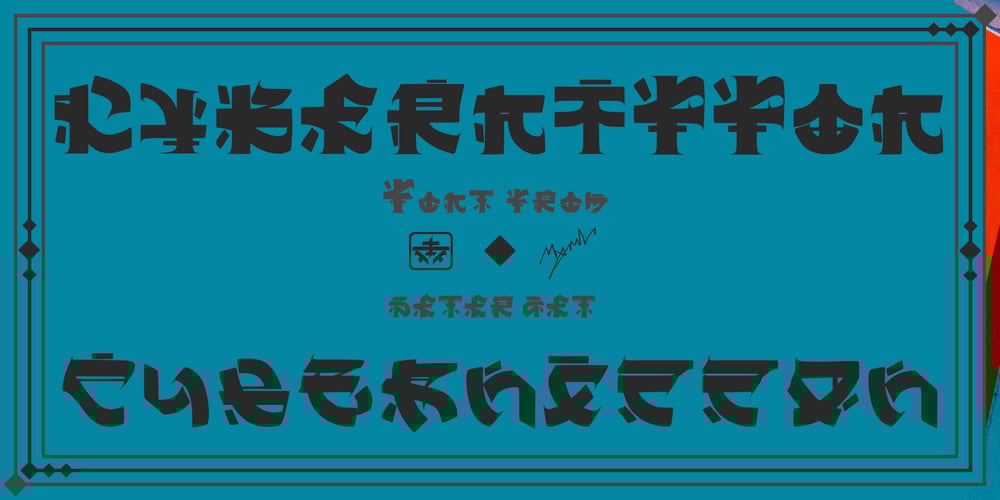
CyberNippon
CyberNippon font
CyberNippon Font Family was designed by Setter Zet and published by MXMV Design. CyberNippon contains 2 styles and family package options. CyberNippon is a unique latin script font that references Japanese and Cyberpunk motifs. Literal translation of the name “Cyber ​​Japan”This typeface took many months to complete and was inspired by the style and mood of cyberpunk, for whom Japanese culture is very close. Since the Japanese are inherent in perfectionism, while working on this font, I brought everything to perfection.The result of all the work was, in my opinion, a font that was perfectly verified and worked out for many hours.The main motives that are visible in this work are the modern interpretation of the classic Japanese hieroglyphic systems – hiragana and katakana.Originally, the font was completely handwritten using a calligraphic pen, and then converted to digital format.